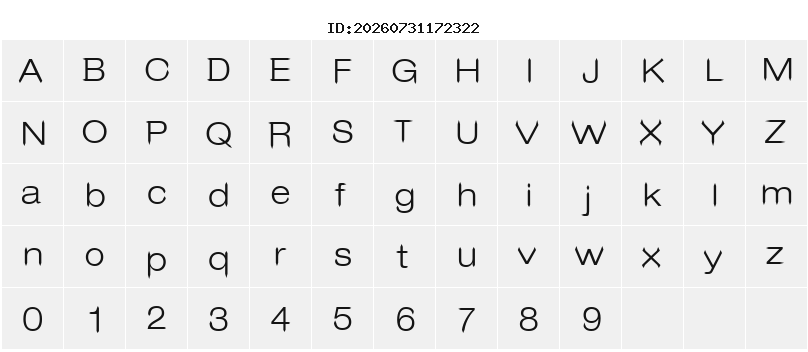
• Font Name: Leo Arrow
• Full Font Name: Leo Arrow Sans Serif
• Designer: Tipography Leone Florence
• Manufacturer: Tipografia Leone
• Description: Font Sans Serif created by the Typography Leone of Florence
Leo Arrow.ttf is a modern, elegant sans-serif font designed for ultimate readability and visual harmony. Perfect for branding, headlines, web design, and print materials.